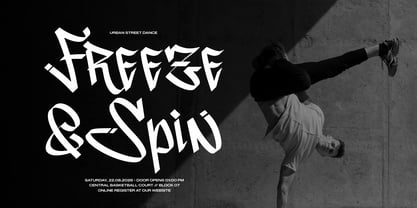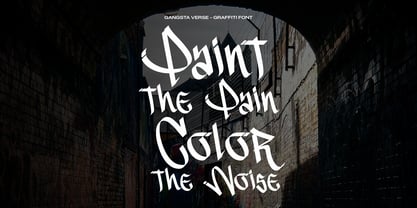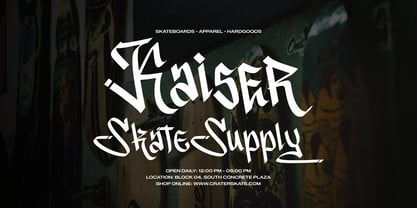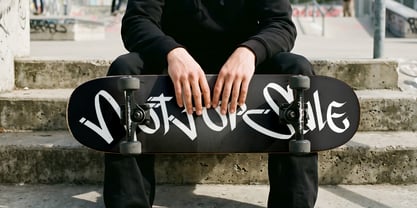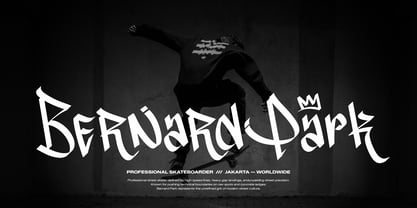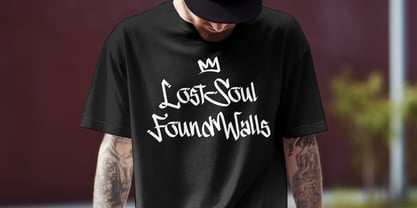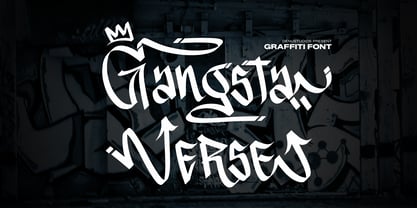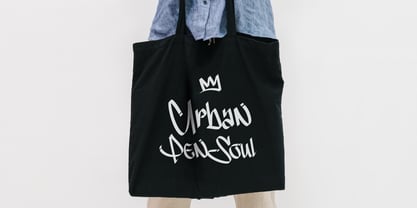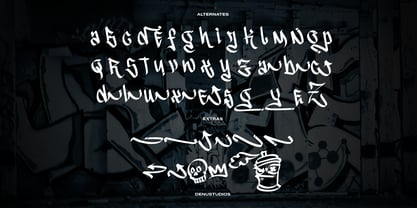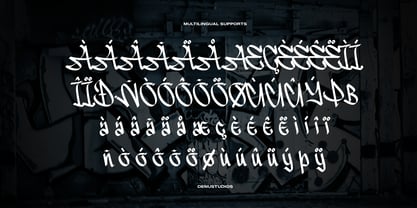
Gangsta Verse
by Denustudio
The Gangsta Verse Font Family was designed by Dede Marwan and published by Denustudio. Gangsta Verse contains 1 styles. More about this family
Gangsta Verse | Graffiti Font, from Denustudios, suitable for any projects such as: logos, branding projects, homeware designs, product packaging, mugs, quotes, posters, shopping bags, t-shirts, book covers, name card, invitation cards, greeting cards, label, photography, watermark, special events, and all your other lovely projects that need Graffiti a taste.
Designers: Dede Marwan
Foundry: Denustudio